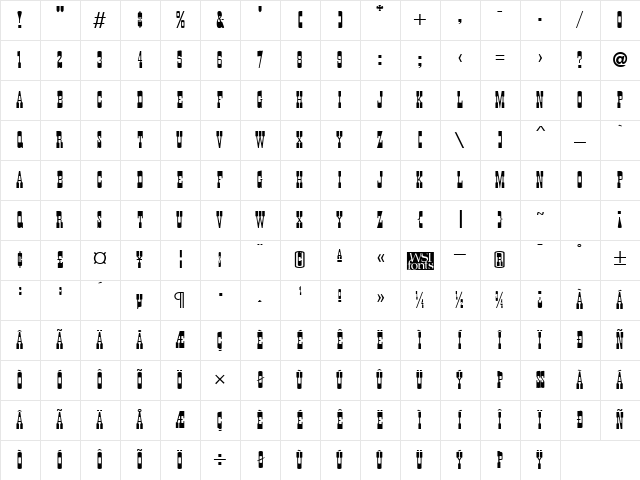
WantedPoster Regular Free Font
WantedPoster Regular
Design Context for WantedPoster
WantedPoster is a composed and adaptable typeface that performs quietly and consistently across a wide range of design contexts.